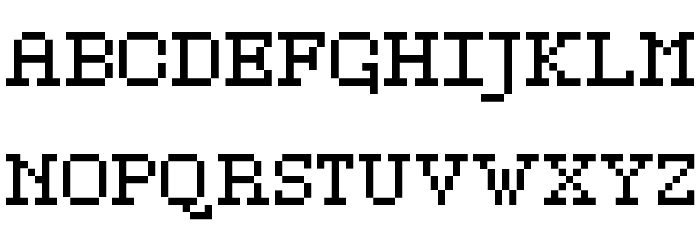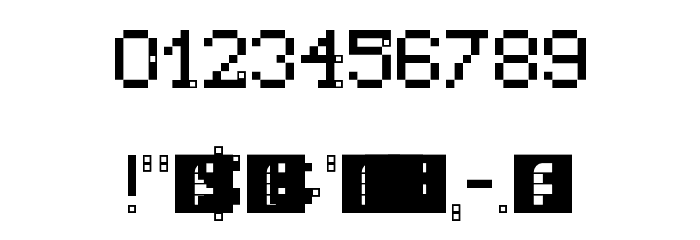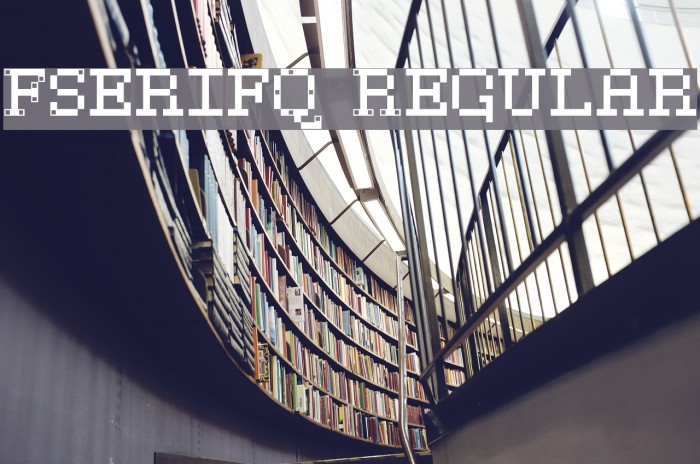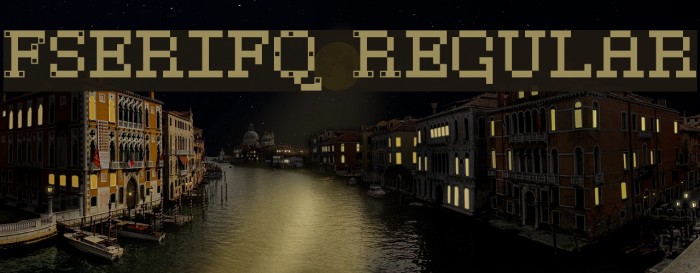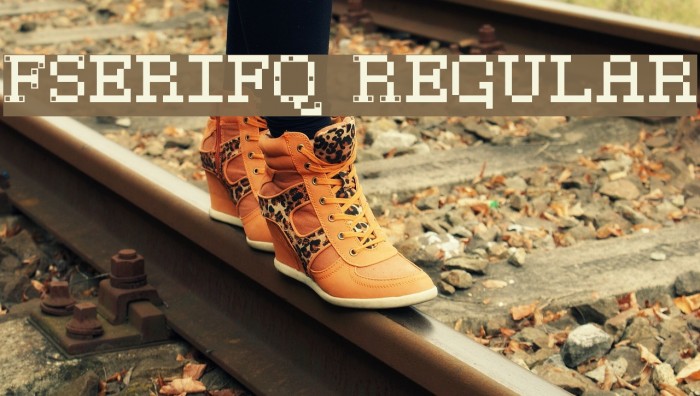
FSerifQ Regular Font
This font features a distinctive pixelated style, reminiscent of early digital displays and retro video games. Each character is constructed with a grid-like pattern, giving it a blocky and geometric appearance. The uppercase and lowercase letters maintain a consistent height and width, contributing to a uniform look. The numerals and special characters follow the same design principles, ensuring cohesion across all glyphs. The font's unique aesthetic makes it stand out, offering a nostalgic yet modern twist suitable for digital and print media.
A pixelated, retro-style font with a blocky, geometric appearance.
- Proposed Projects: Ideal for retro-themed designs, video game graphics, digital art, and tech-related branding.
- Overall Style: Retro, Digital
- Use Case: Headlines, Logos, Digital Art